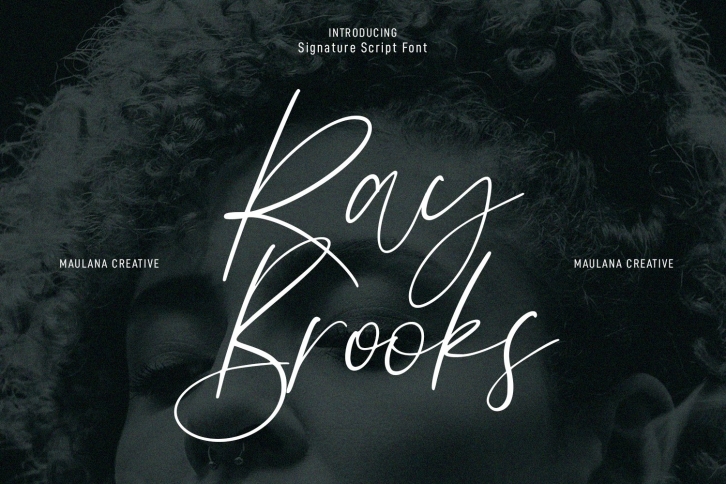
Ray Brooks Script is a gorgeous font that was realeased on August 28, 2022. The font can be used in many style contexts and design environments. Perfect for invitations, magazines, websites, logos, and more! It was designed by Maulana Creative and the file size is 14.33 MB. Thanks for checking out this font!